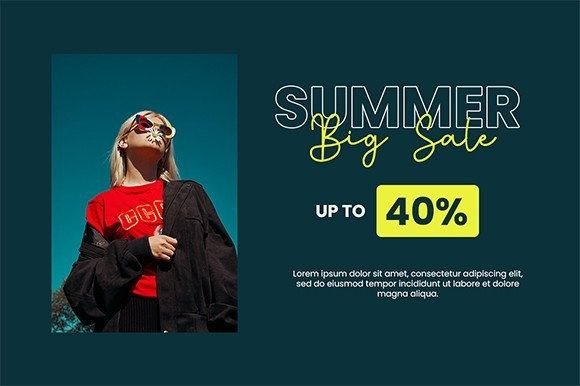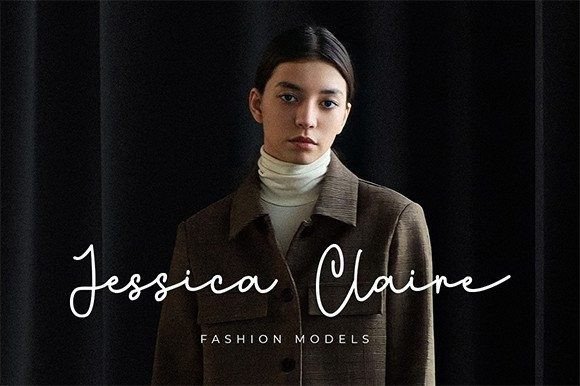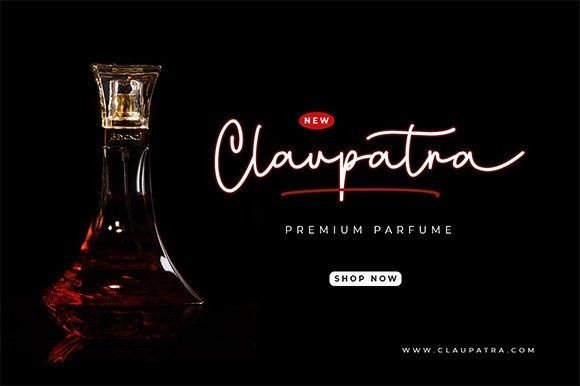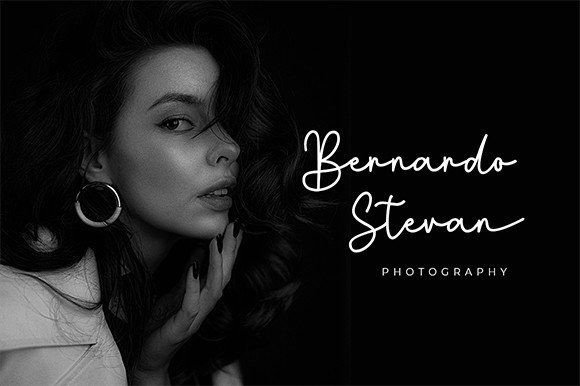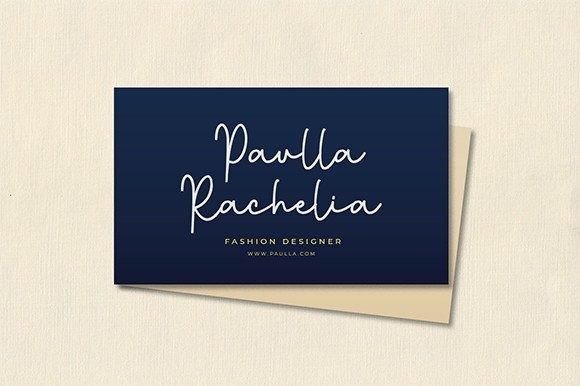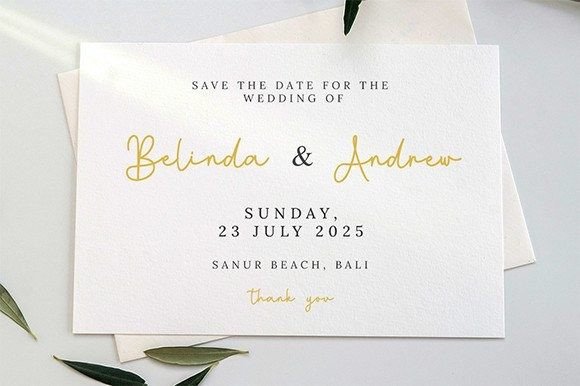
The Perfect Blend of Style and Sophistication
As a designer, you know that the right font can make all the difference in elevating your project from good to great. There’s something special about creating a piece that leaves a lasting impression, and that’s exactly what the Bougenville Font is designed to do.
This stunning handwritten font boasts a refined and classy look that’s sure to captivate your audience. With its balanced and varied strokes, Bougenville Font adds a touch of elegance to any project, making it perfect for branding, weddings, product design, and more. Whether you’re a seasoned designer or just starting out, this versatile font is a valuable addition to your toolkit, offering endless possibilities for creativity and self-expression.
Bougenville Font Key Features
- Font Family: Bougenville is a script font designed to evoke elegance and sophistication.
- Unique Characteristics: Bougenville features a unique blend of classic and modern elements, with flowing connections between letters and a subtle flair at the ends, making it ideal for invitations, logos, and other creative projects.
Bougenville Font Review
Overall, I’m quite impressed with the Bougenville font. It has a unique, elegant aesthetic that works well for a variety of design projects, particularly those with a whimsical or vintage feel. ✨ The font’s flowing curves and subtle imperfections give it a hand-drawn quality that adds character to any text.
- Unique, elegant aesthetic
- Works well for whimsical or vintage designs
- Hand-drawn quality adds character to text
However, there are some limitations to consider. ⚠️ The font may be too ornate for certain designs, and some of the characters can be difficult to read at smaller font sizes. Additionally, the font’s irregularities can sometimes make it challenging to achieve perfect alignment and spacing.
- May be too ornate for certain designs
- Difficulty reading characters at smaller font sizes
- Irregularities can make alignment and spacing challenging
Despite these limitations, I think the Bougenville font is a great choice for designers who want to add some personality to their projects. With its unique aesthetic and versatility, it’s a great addition to any font collection.
Bougenville Font: A Practical Application Guide
Getting the Most Out of Bougenville Font
To get the most out of Bougenville Font, try pairing it with a bold or italic font for contrast. You can also adjust the font size and color to create visual hierarchy in your design.
The Bougenville Font is ideal for creating elegant and sophisticated designs, such as wedding invitations, luxury branding, and high-end marketing materials.
Alternatives to Bougenville Font
Playfair Display is a luxurious, high-end serif font. It’s perfect for creating a sophisticated and elegant look, ideal for high-end fashion brands, luxury products, or wedding invitations. It has a more formal and refined feel compared to Bougenville Font, which is more playful and whimsical.
Carolyna Pro is a modern, elegant script font. It’s great for creating a high-end, sophisticated look, perfect for fashion brands, beauty products, or luxury lifestyle magazines. While Bougenville Font has a more feminine touch, Carolyna Pro has a more polished and refined feel.
Great Vibes is a beautiful, elegant script font. It’s ideal for creating a luxurious, high-end look, perfect for fashion brands, beauty products, or luxury lifestyle magazines. Great Vibes has a more refined and sophisticated feel compared to Bougenville Font, which is more playful and whimsical.
Crimson Text is a serif font with a vintage touch. It’s great for creating a classic, elegant look, perfect for books, magazines, or websites with a nostalgic feel. While Bougenville Font has a more modern and playful feel, Crimson Text has a more traditional and timeless feel.